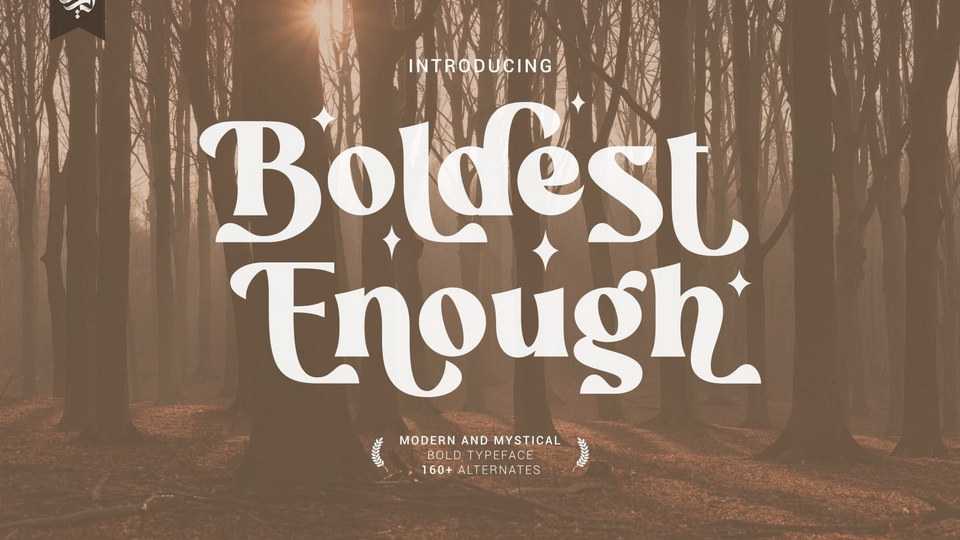
Download Boldest Enough font, a modern and mystical bold display typeface. Boldest Enough font is inspired by the mystical vibe from animation horror movie for kids.